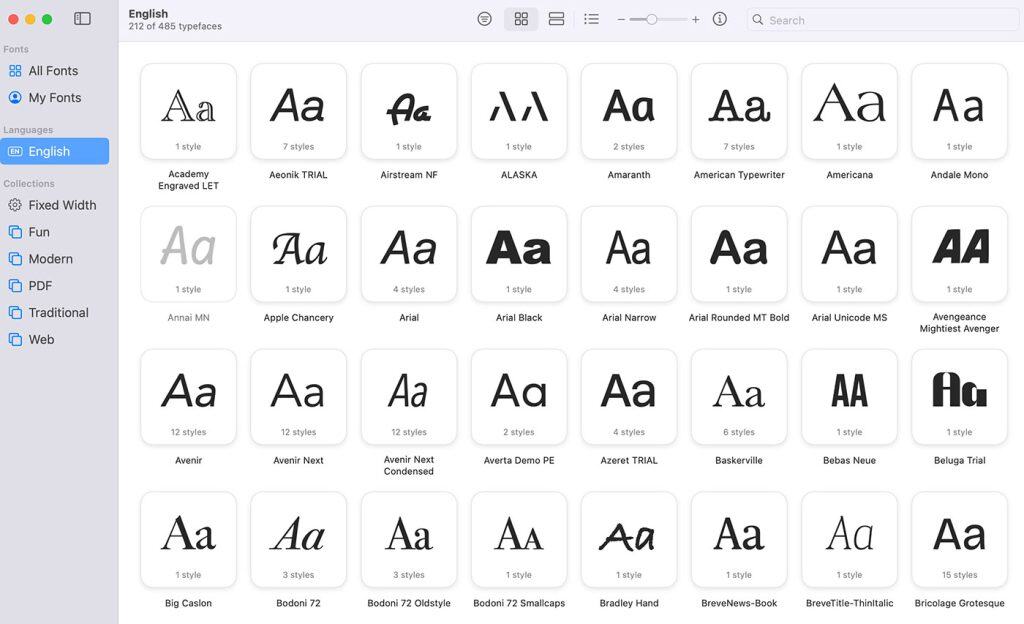
Remember system fonts? Good old Times New Roman, trusty Arial, and the unkillable Courier New. Fonts so baked into operating systems, they felt like infrastructure—like sidewalks and salt.
For a solid decade, they were the default visual language of the web. Now? They’re fallback options. A footnote. The web’s equivalent of hold music.
And let’s be honest: most of us aren’t mourning the loss.
But maybe we should.
From Default to Discarded
There was a time when designing a website meant choosing between a half-dozen system fonts and praying they rendered correctly on Internet Explorer 6. Georgia was the edgy choice. Verdana was the safe bet. Web typography wasn’t about taste—it was about survival. And in that landscape, system fonts were gods.
Fast forward to 2025. How many websites still choose to use system fonts as their primary typeface? Outside of performance-first apps or minimalist indie blogs, the answer is practically zero. Not because they’re bad fonts (they’re not), but because we’ve moved on. Because now we can.
Nostalgia Ain’t Enough
Let’s pause and give credit where it’s due. System fonts gave the web its earliest identity. They were familiar, reliable, and light on the bandwidth. They were typography’s version of comfort food. But like all nostalgia, that warm feeling turns tepid when faced with actual usage.
System fonts are often cited in performance discussions—“Look how fast this page loads! No font files! It’s just system fonts!” Yeah. And it looks like a tax form.
You can call it nostalgic. Users call it unstyled.
The UX Case for Fonts with a Pulse
Typography is 95% of web design. Let that sit. Most of what we interact with online is type, not color, not layout, not animation—text. So when we settle for a fallback font, we’re saying, “Eh, close enough.”
That’s not UX, that’s apathy.
System fonts, for all their historic charm, lack character. They weren’t designed for branding or storytelling. They were designed for legibility across wildly different operating systems. Great for email clients. Not so great for expressing tone.
It’s no coincidence that when Apple rolled out San Francisco, or Google pushed Roboto, they weren’t just refreshing UI—they were branding their ecosystems. Typography is experience. Why are we still pretending it’s optional?
“But They’re Fast!” is Not a Strategy
Yes, custom fonts are heavier. Yes, you might get a flash of unstyled text (FOIT/FOUT party, anyone?). But let’s be real: modern web performance isn’t being bottlenecked by font files. It’s being smothered by 9MB of JavaScript tracking scripts, four chat widgets, and a heatmap running in the background.
If your page loads in 4 seconds, it’s not because you used Roboto.
Font files are tiny compared to the visual and emotional payoff they deliver. System fonts may be fast, but they don’t feel fast. And on the modern web, perception is reality.
System Fonts Are Not a Design Choice
Here’s the hot take: using system fonts today is almost never a design decision. It’s a placeholder. It’s the equivalent of lorem ipsum. A silent admission that typography was the last thing on the list—or worse, an afterthought.
And that’s fine, if you’re prototyping or bootstrapping. But in production? In 2025? That’s like launching a luxury car with plastic seats and saying, “It gets you there.”
Designers: your typography is the voice of your product. If you let the OS choose your typeface, you’re letting Microsoft or Apple or Linux speak for you. Is that the brand you want?
The Irony: System Fonts Got Better—Just as We Stopped Using Them
Ironically, system fonts have quietly evolved. San Francisco, Segoe UI, and the newer versions of Noto and Ubuntu fonts are beautifully crafted, readable, and responsive to screen contexts. They have weights, ligatures, and OpenType features that make print designers weep.
But here’s the rub: they’re no longer shared. San Francisco doesn’t ship with Windows. Segoe doesn’t show up on iOS. The promise of system-wide fonts has splintered. So when people say “use the system font stack,” what they really mean is, “Hope it doesn’t look weird on Firefox on Linux.”
We’ve outgrown the idea of a shared typographic baseline. The global web has no system font anymore. Just a blurry fallback chain.
Fallback ≠ Foundation
System fonts are fine as insurance. Every font stack needs a parachute. But should we be designing our experiences around the parachute?
Let’s not confuse reliability with quality. Yes, Arial will render. But Arial is a lie. It’s Helvetica’s less-attractive cousin who only shows up at family reunions to borrow money. We shouldn’t be building sites around fonts that exist solely to be “good enough.”
Web typography should be opinionated. Purposeful. Specific. The moment we default to system fonts, we’re handing the keys to someone else’s aesthetic. And for what? A 10ms performance gain?
So What Now?
Use system fonts when it makes sense—when you’re building admin dashboards, performance-critical apps, or UI kits that need neutral, flexible defaults.
But don’t pretend it’s a statement.
If you care about voice, tone, and trust, use a real typeface. One that fits the story you’re trying to tell. The death of system fonts isn’t a tragedy. It’s progress.
System fonts aren’t villains. But they’re not heroes either. They’re the background extras of the web: quiet, forgettable, and replaceable.
And that’s exactly where they belong.